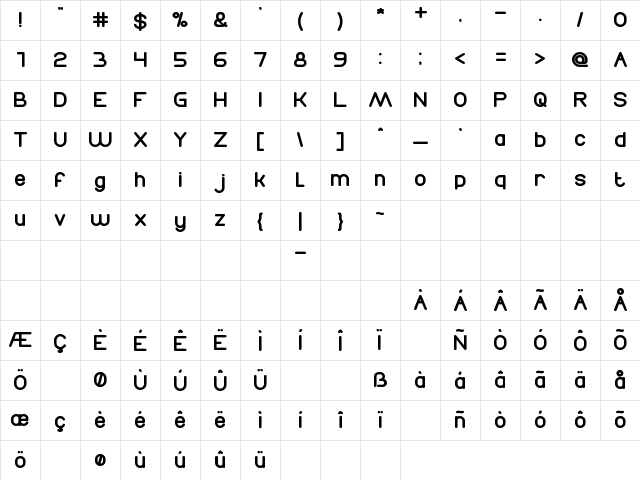
Complete Times New Romance Negreta glyph index. Displaying only characters natively supported by Times New Romance Negreta font.
Times New Romance is a composed and adaptable typeface that performs quietly and consistently across a wide range of design contexts. Its bold stroke weight gives it real presence on the page.